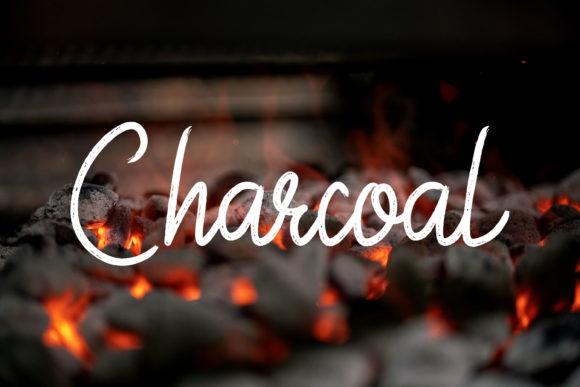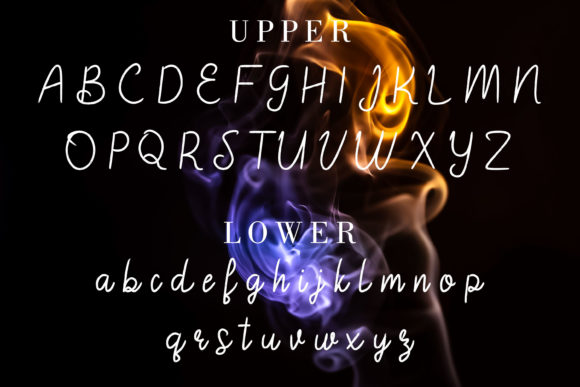
The Burned Font: A Designer’s New Best Friend
I’ll never forget the time I was working on a wedding invitation project, and my client asked for a font that was elegant, yet playful. I scoured the internet, tried countless fonts, but nothing seemed quite right. That was until I stumbled upon the Burned font family. It’s been a game-changer ever since! 🎉
- ✨ Unique brush script style that’s perfect for displays, wedding invitations, logos, and more
- ✅ Precision stroke shapes that give it a professional look and feel
- 💫 Highly versatile and can be used for a wide range of design projects, from social media posts to product packaging
- 🎨 Beautifully crafted to add a touch of elegance and sophistication to any design
While I absolutely love the Burned font, there are a few things to keep in mind:
- ⚠️ Some of the more intricate designs may not display well at smaller font sizes
- 🤔 Limited availability of certain characters or glyphs, but this can be mitigated with OpenType features
The Designer Inspiration Behind Burned Font
The Burned font was created by a team of designers who wanted to craft a unique, elegant script font that would add a touch of sophistication to any design. Inspired by traditional brush script fonts, they carefully crafted each letterform to ensure that it was both beautiful and legible. The result is a font that’s perfect for designers, crafters, and creative hobbyists alike.
| Font Name | Burned Font |
| Author | chunlettering |
Q: What is the Burned font family?
A: The Burned font family is a unique brush script font family made with precision stroke shapes. It’s perfect for displays, wedding invitations, logos, advertisements, social media posts, product packaging designs, labels, stationery, photography watermarks, greeting cards, websites, and more.
Q: Is Burned font suitable for body text?
A: While Burned font is beautiful and elegant, it’s best suited for display text or headings. Its unique design and precision stroke shapes may not be suitable for body text, which requires a more traditional and legible font.